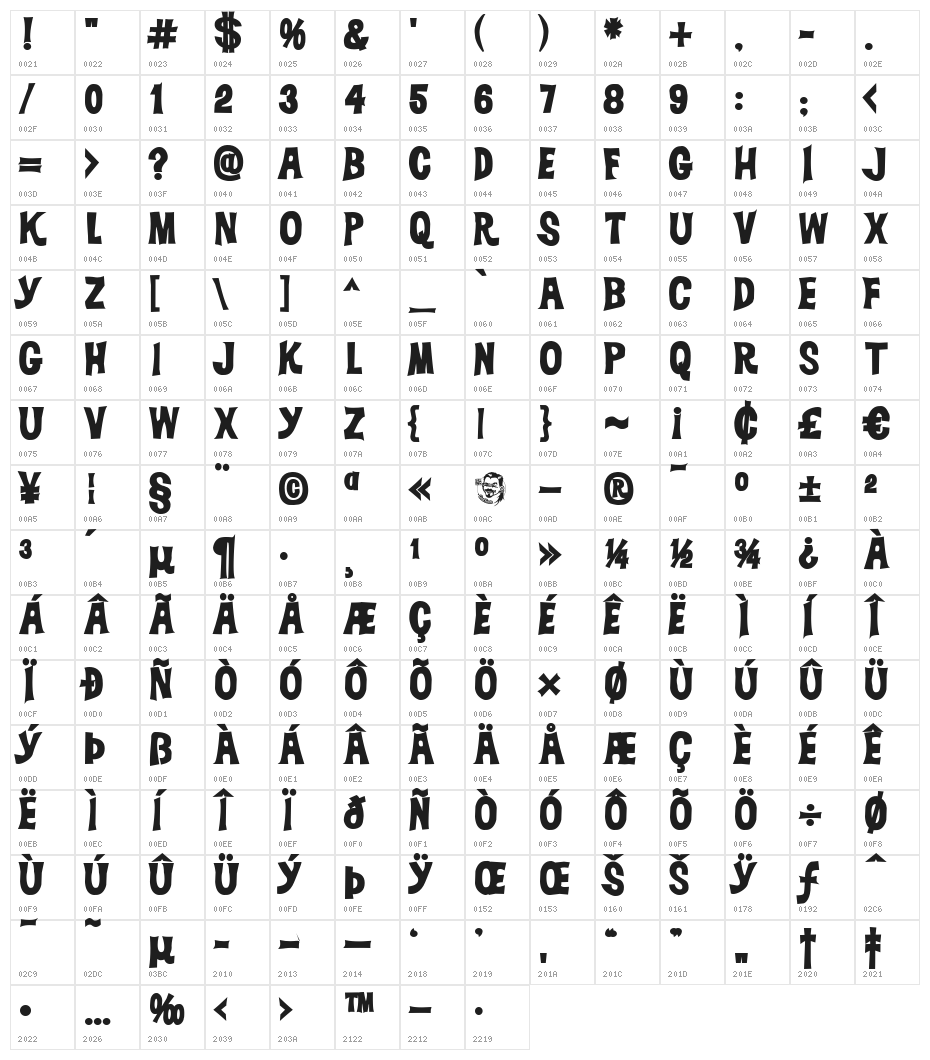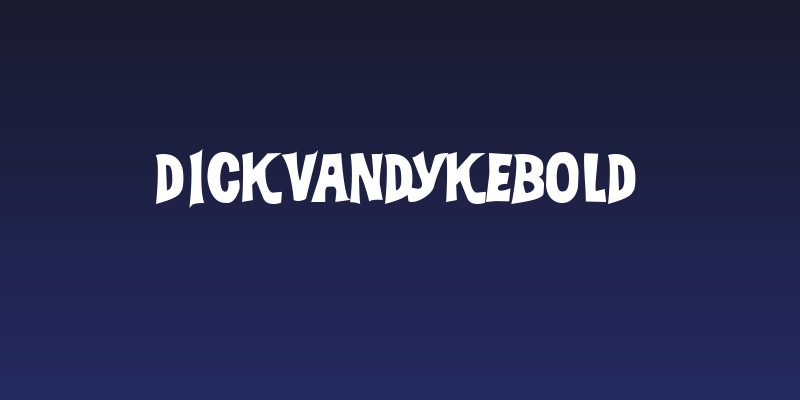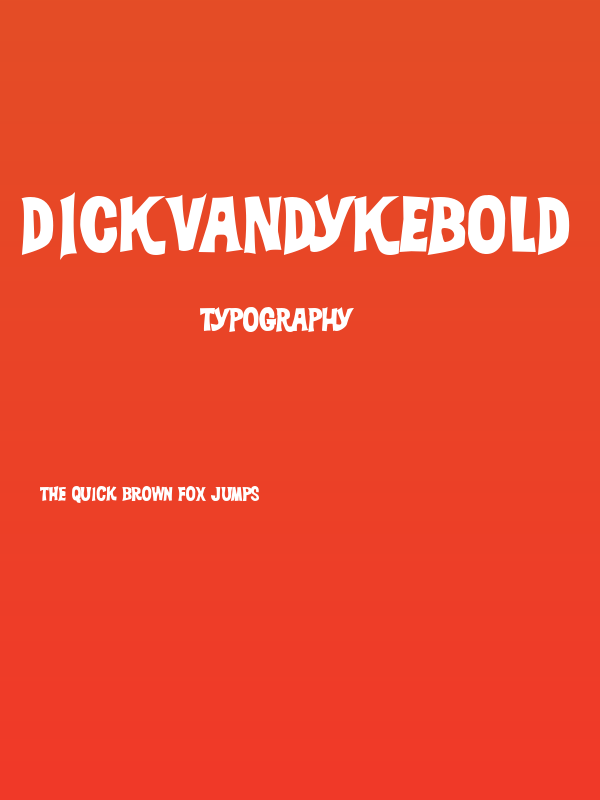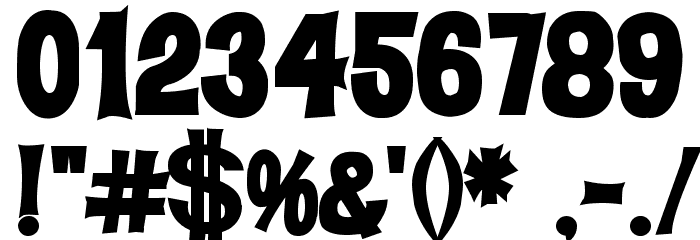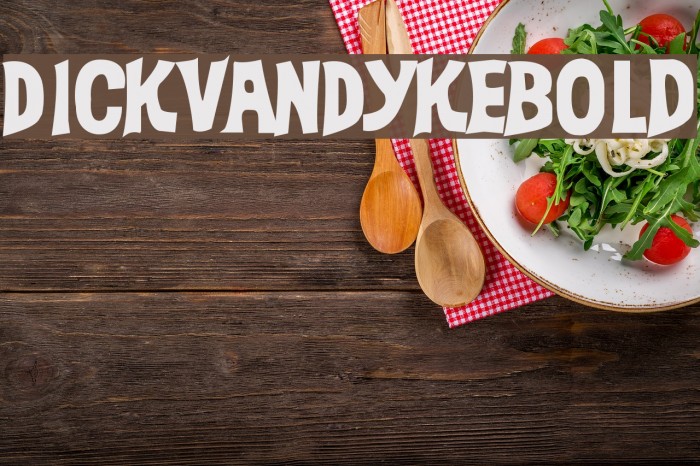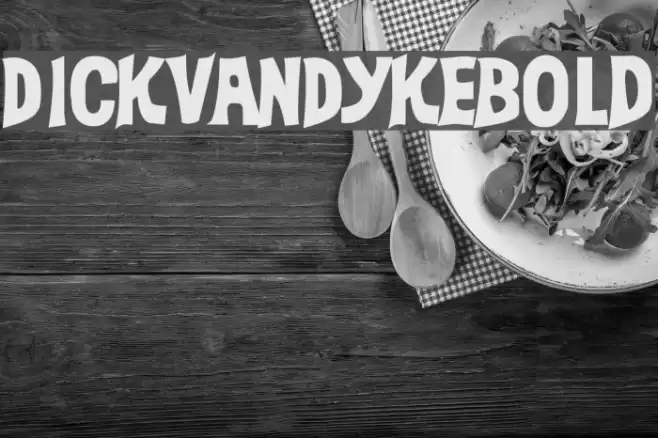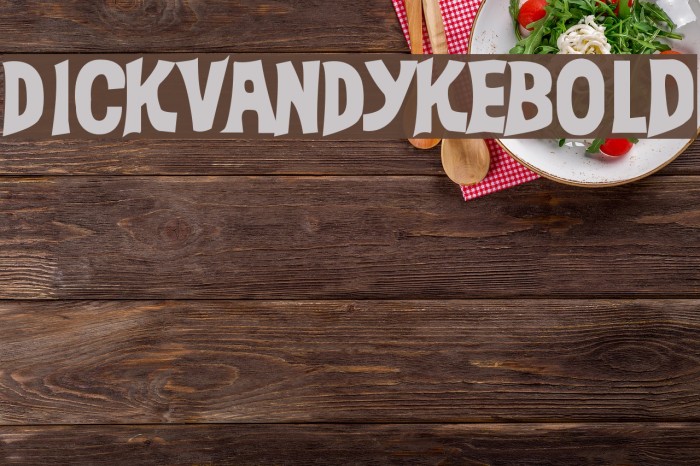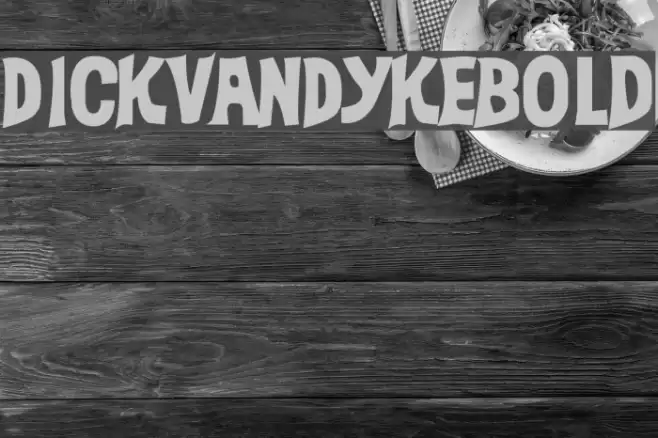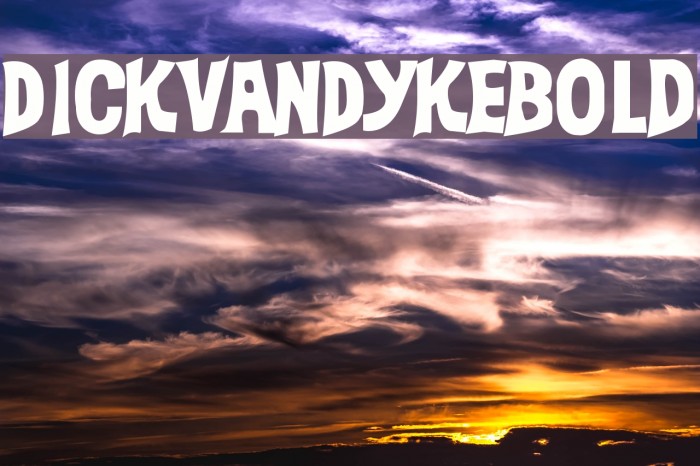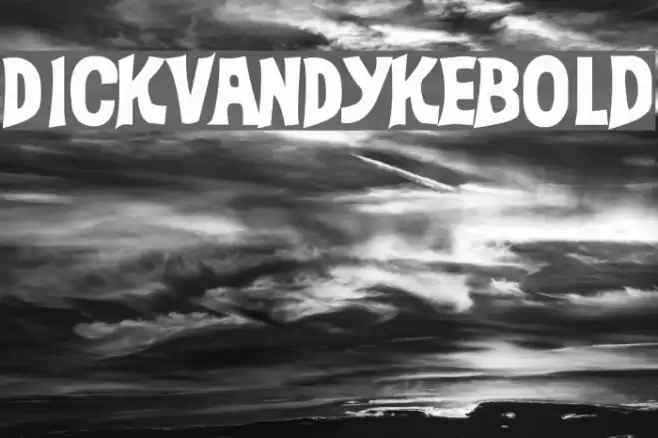
DickVanDykeBold Font
| Style général | Playful, Whimsical |
| Projets proposés | Ideal for children's book covers, playful branding, posters, and event invitations. |